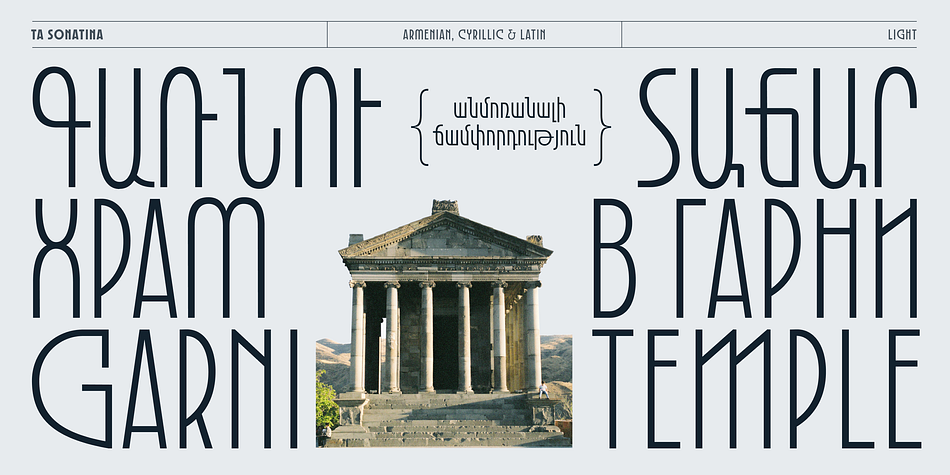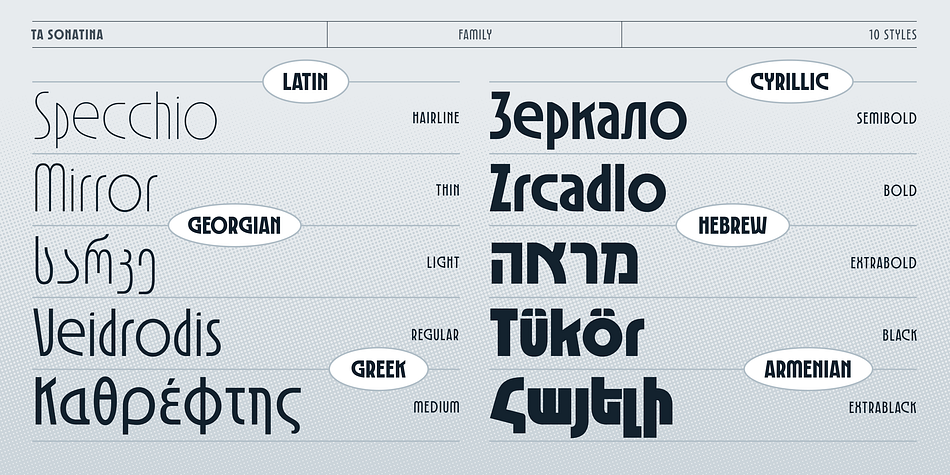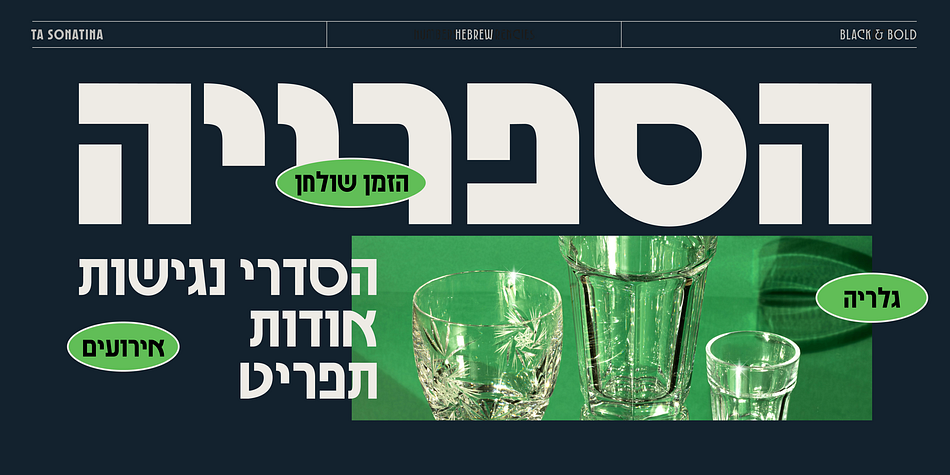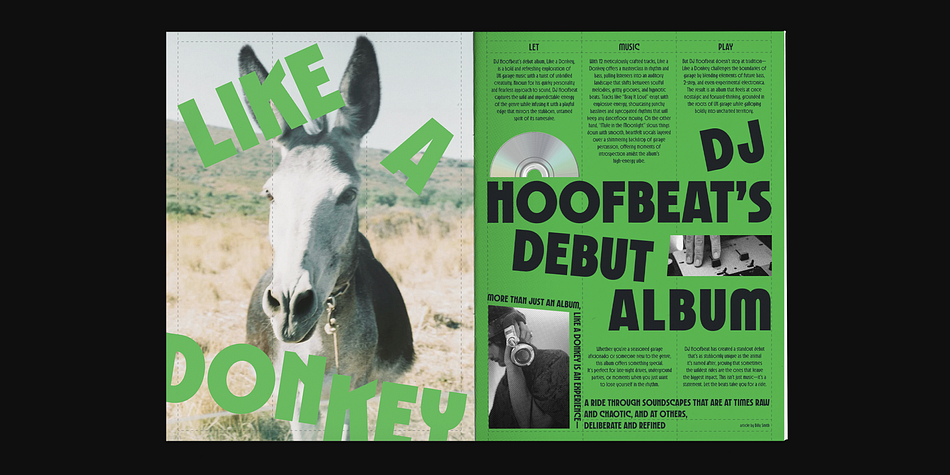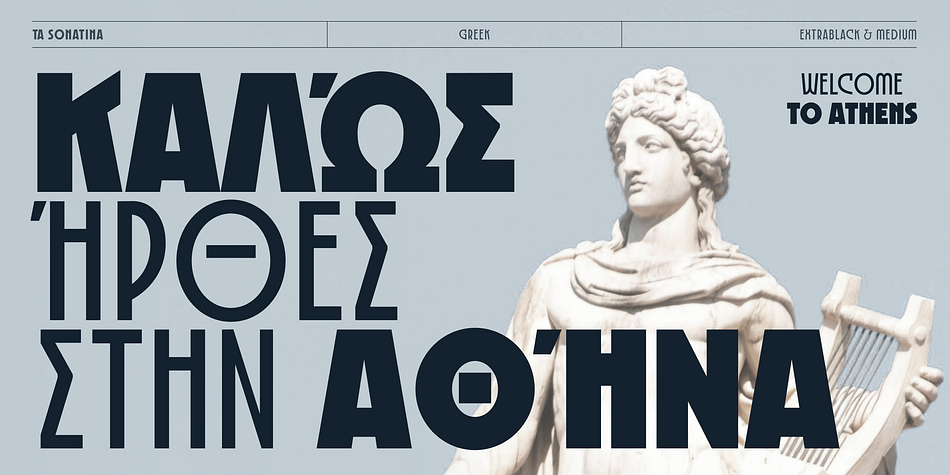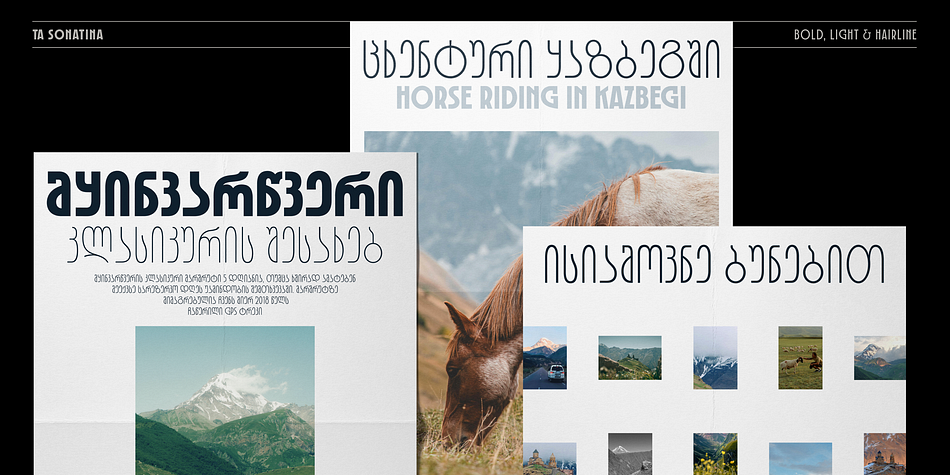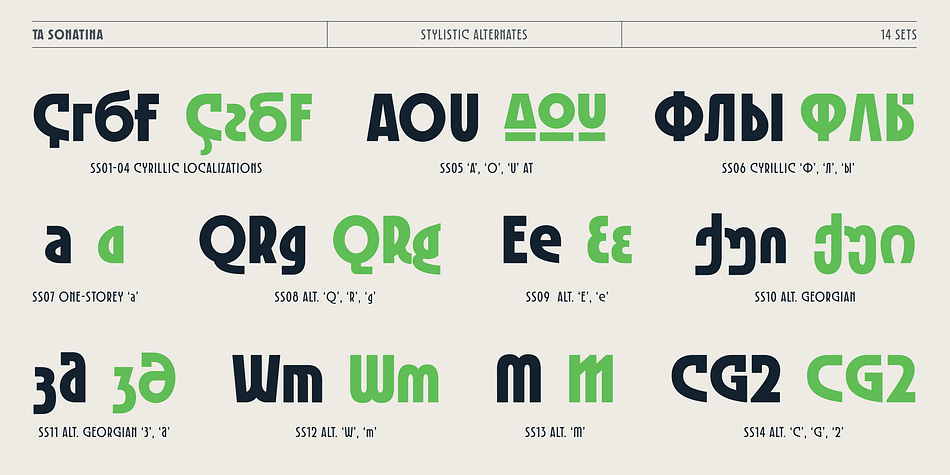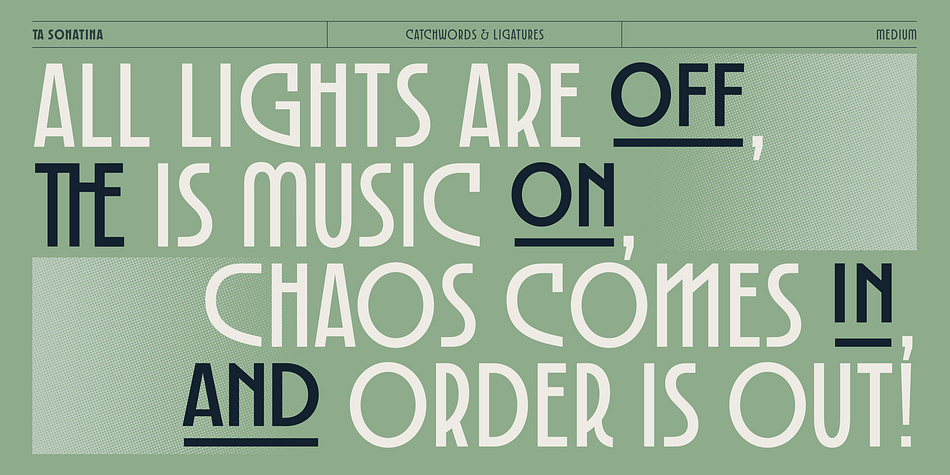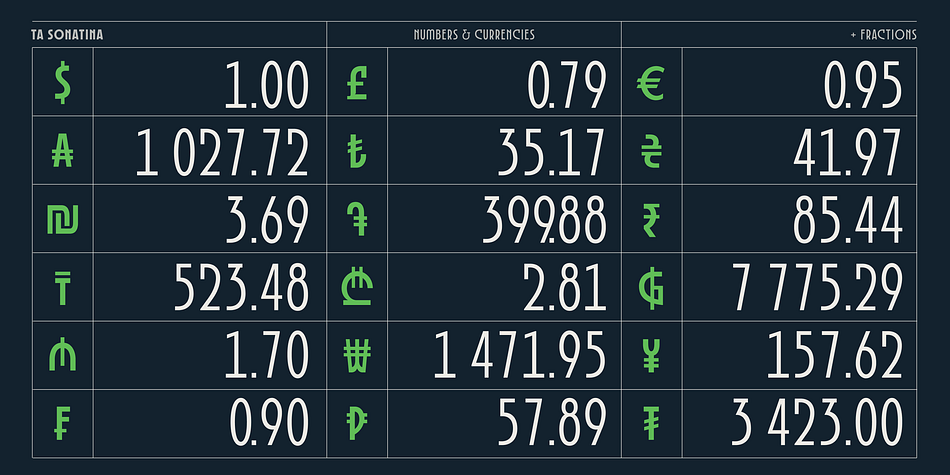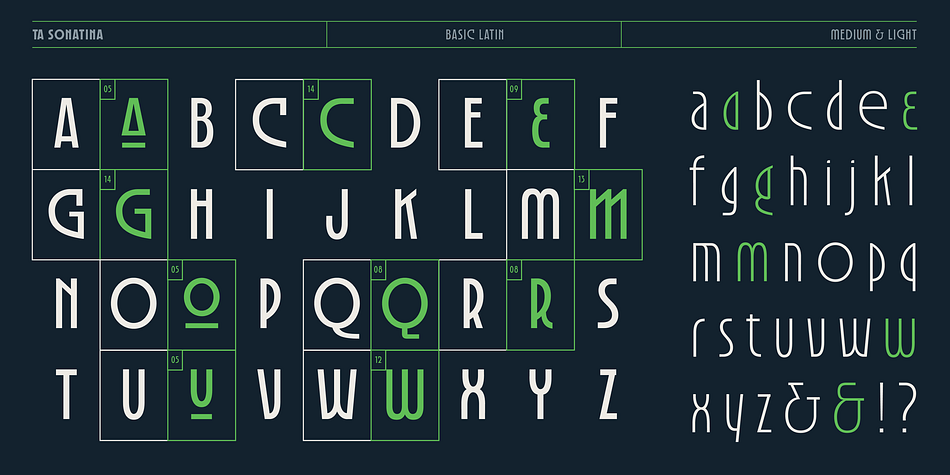
TA Sonatina
TA Sonatina is a display sans font family. This typeface has ten styles and was published by TAFT Foundry.
The standout feature of TA Sonatina lies in its blend of structured geometry and fluid curves, offering a perfect balance of sharp edges and soft contours. Its multilingual support includes Latin, Cyrillic, Armenian, Greek, Hebrew, and Georgian scripts, celebrating typographic diversity with seamless integration.
TA Sonatina’s design boasts alternative styles for select letters, giving designers the freedom to mix and match for a dynamic, custom look. With its bold swashes, underlined details, and experimental proportions, the font resonates with the improvisational flow of classical music compositions, yet retains a contemporary edge.
The typeface includes an extensive set of OpenType features to elevate creative possibilities. These features include Discretionary Ligatures, Standard Ligatures, and a rich selection of Stylistic Alternates (SS01 to SS14), enabling unique letter variations such as alternative Cyrillic, Georgian, and Latin forms. Additional typographic enhancements include Tabular Figures, Fractions, Superscripts, Subscripts, and Localized Forms, ensuring flexibility across diverse languages and design needs.
This typeface is an ideal choice for impactful headlines, editorial layouts, branding, posters, and experimental designs. Its ability to combine cultural depth and modern aesthetics makes it a powerful tool for projects that demand both sophistication and creativity.
Whether you’re designing a book cover, logo, or avant-garde visual piece, TA Sonatina offers a typographic melody that sings with character and elegance.
Type Designer: Tural Alisoy.
Contributors: Alena Linnask (graphic design).